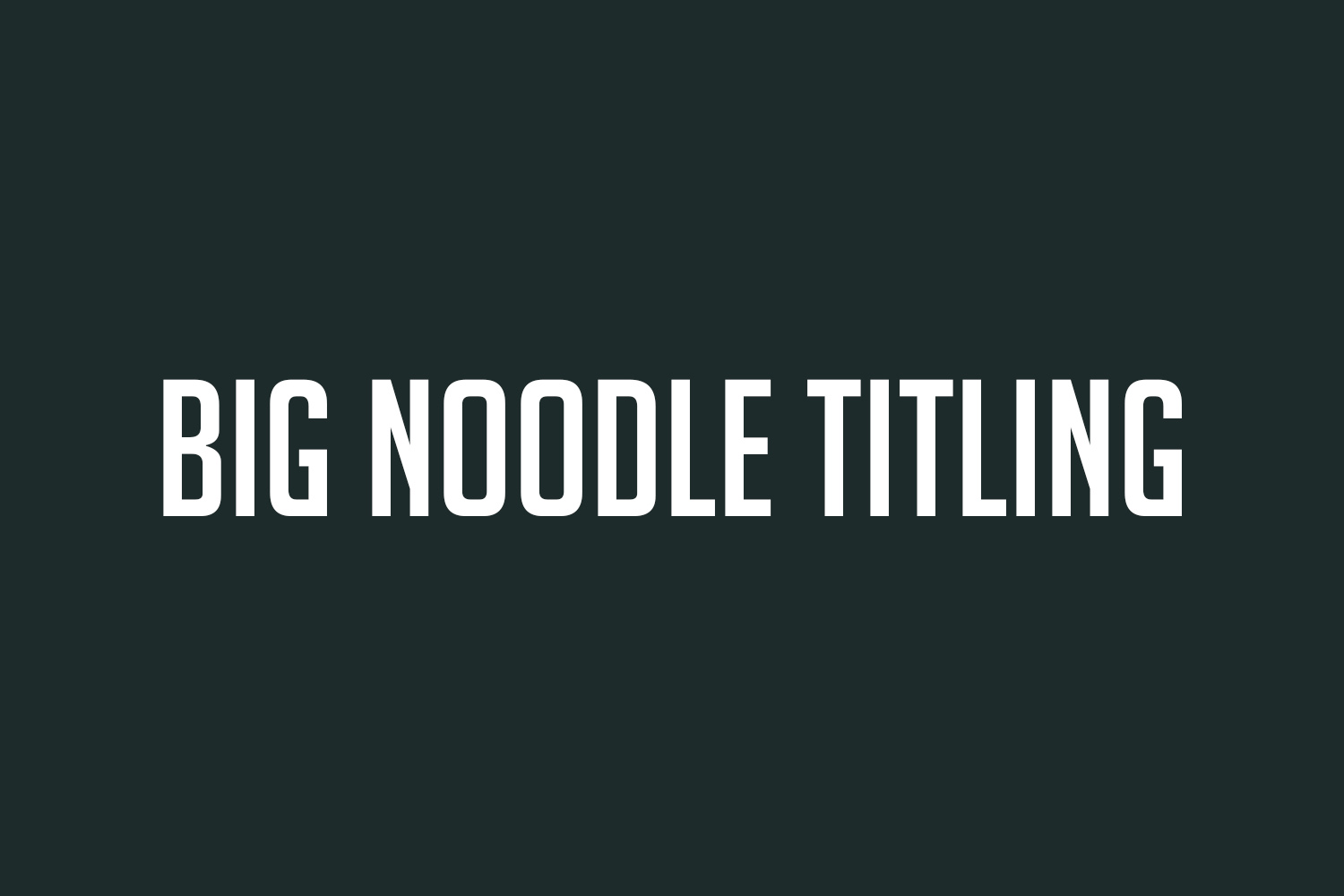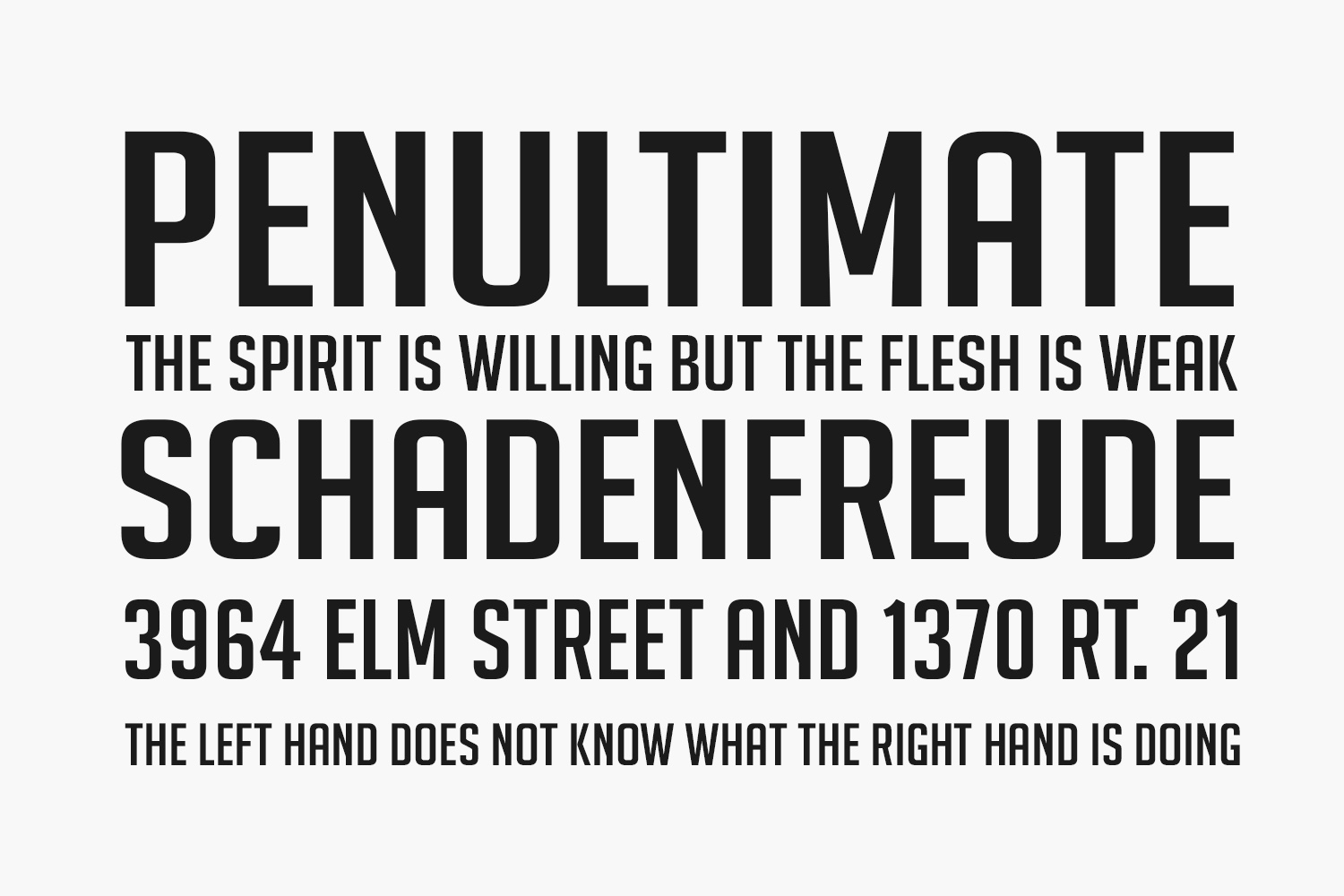
Big Noodle Titling Free Font Famly is a bold and eye-catching choice for any project. Its strong, clean lines and modern style give a sense of confidence and sophistication. Whether you’re creating a striking banner or adding a touch of drama to your designs, this font is sure to make a statement and stand out from the crowd.